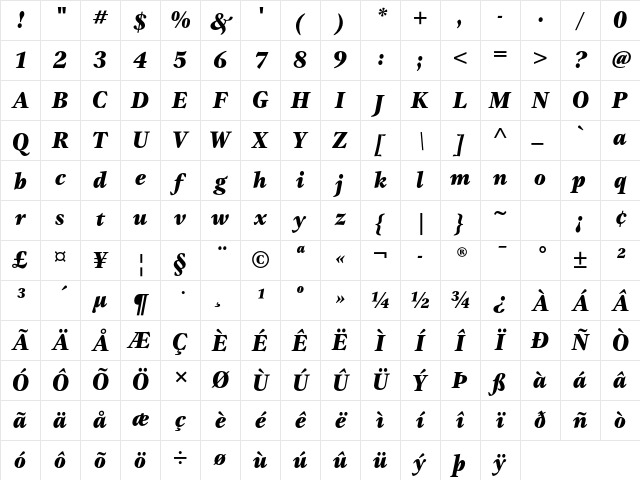
Gamma ITC Std Black Italic
Designer: Jovica Veljovic
Design Context for Gamma ITC Std
Gamma ITC Std is a composed and adaptable typeface that performs quietly and consistently across a wide range of design contexts. The slanted form adds forward momentum and visual energy.